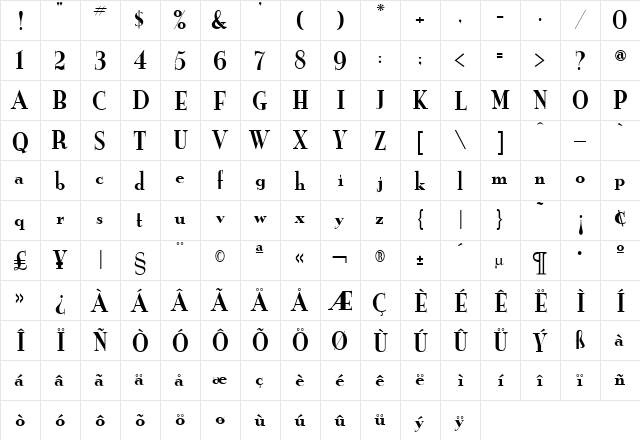
Mona Lisa Solid Regular
Design Context for Mona Lisa Solid Typeface
Mona Lisa Solid takes a measured approach to typography — its balanced proportions and neutral character make it a reliable workhorse for both digital and print work.